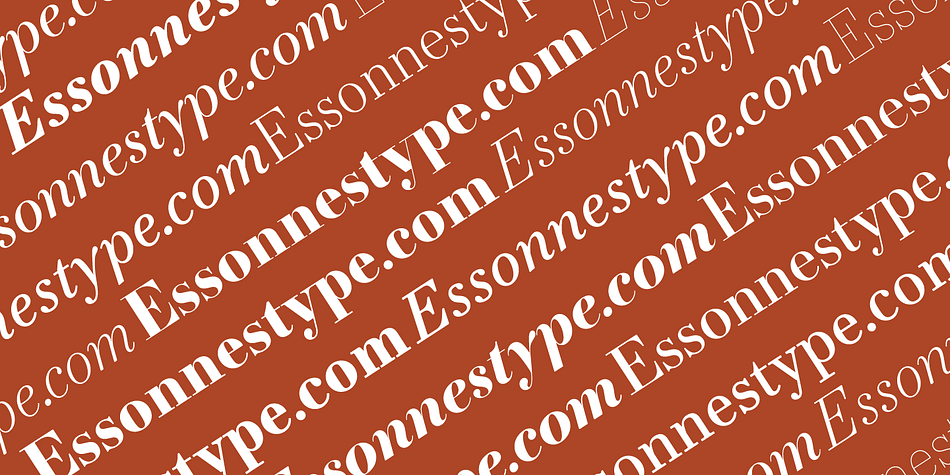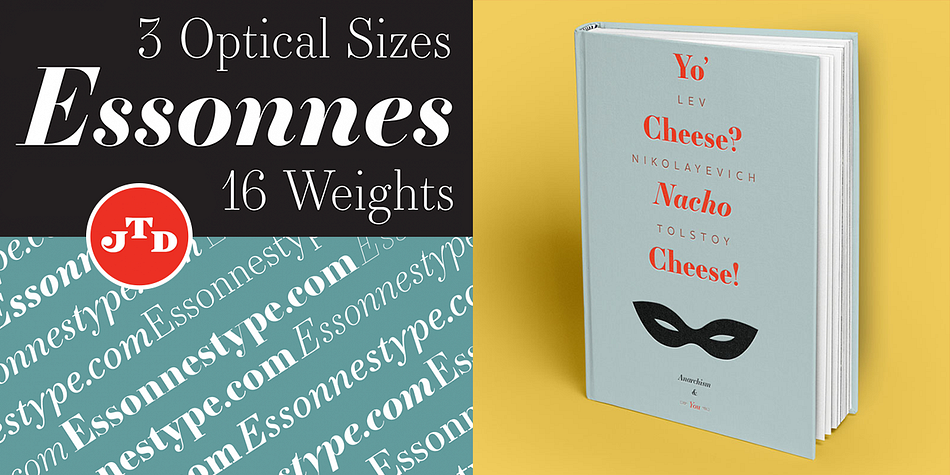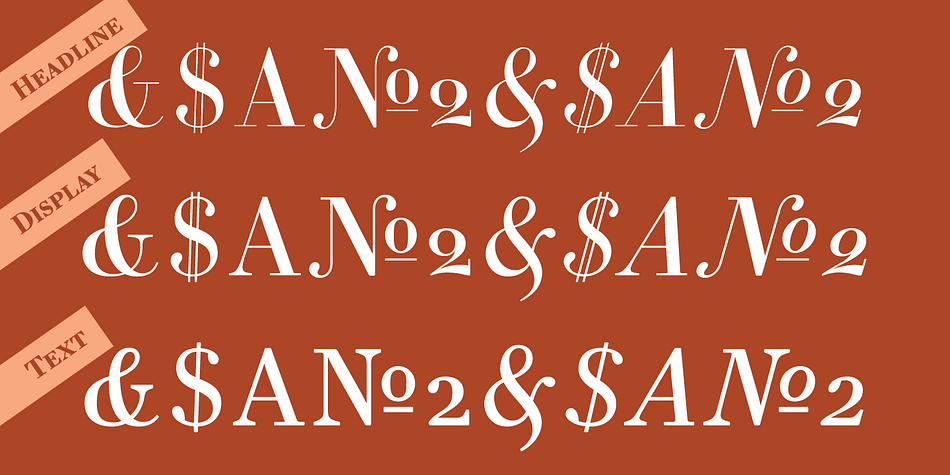
Essonnes
Essonnes is a serif font family. This typeface has sixteen styles and was published by JTD.
Made up of sixteen individual weights and spread over three different optical sizes, Essonnes is designed to bring utility back to the Didot genre.
It’s a common belief among designers that Didones don’t work for text.
This wasn’t true in 1819 and it isn’t true today.
Like its forbearers, Essonnes is a truly optical family—not just a study in adjusting contrast.
The text and display weights have been designed from the ground up for their intended roles.
This means that everything from the height of the uppercase & lowercase letters have been specifically tuned for their intended purpose.
Made up of sixteen individual weights and spread over three different optical sizes, Essonnes is designed to bring utility back to the Didot genre.
It’s a common belief among designers that Didones don’t work for text. This wasn’t true in 1819 and it isn’t true today. Like its forbearers, Essonnes is a truly optical family—not just a study in adjusting contrast. The text and display weights have been designed from the ground up for their intended roles. This means that everything from the height of the uppercase & lowercase letters have been specifically tuned for their intended purpose.
Like many typefaces, Essonnes started after falling in love with a piece of history. In this case, it was the eccentric forms of Pierre Didot’s Type and the evolution of the High contrast Didone throughout the 19th century. It was out of curiosity and love for these forms that led to the first draft of what would become Essonnes back in 2011.
These unique situations—screens, modern printing methods, the previous 200 years of typographic innovation since the original design, my own life experiences—have led to a typeface that, while based on history, is not stuck in it.